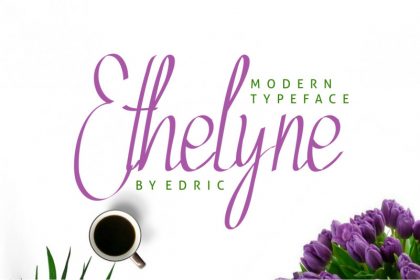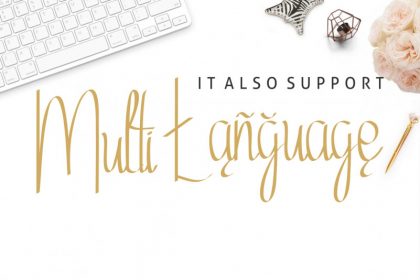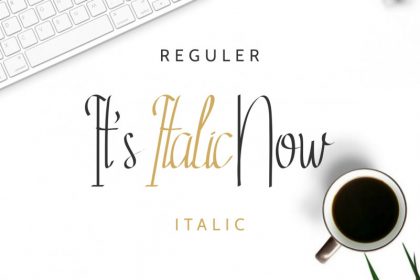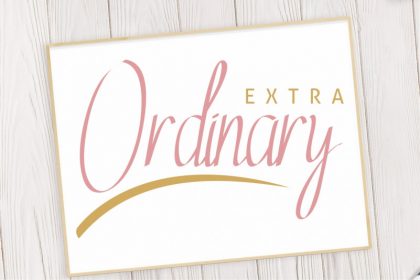
Ethelyne Script Font
Whatsup Everyone?! Introducing our newest font : Ethelyne Script Font! This is a new modern script handwriting feminine style font. It has a fresh, elegant and stylish glyphs. It will be perfect for personal branding, logo, stationery, business card, signage, flyer, brochure, banner, signage etc. There are many industries that is suitable for this font : construction, real estate, restaurant, makeup artist, hairstylist, law firm, and many more